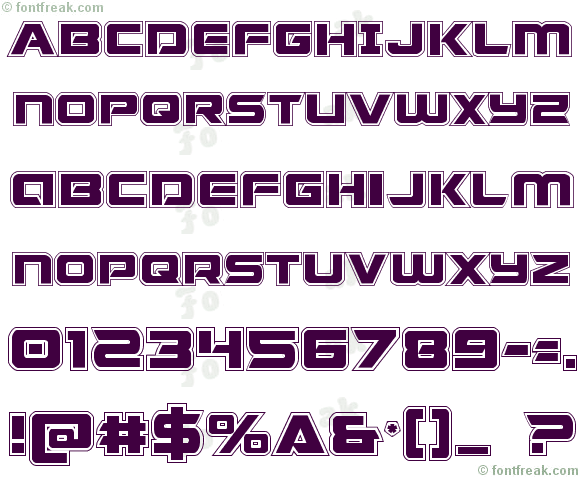
Starduster Shadow
The Starduster Shadow font, created by Daniel Zadorozny, is a striking display typeface that falls within the decorative category. This font features a unique blend of condensed and expanded letterforms, offering a bold presence that captures attention. The visual characteristics include a medium stroke weight, characterized by a subtle shadow effect that adds depth to each character. The letters are outlined with clean lines and a uniform spacing that enhances legibility while maintaining a modern aesthetic. The italicized variation further enhances its dynamic appeal, making it suitable for a variety of creative projects.
Starduster Shadow is ideal for use cases such as movie posters, where its boldness can convey excitement and drama. It is also well-suited for branding small businesses, particularly in the entertainment and tech industries, where a contemporary look is essential. Additionally, the font can elevate restaurant menus, providing a unique flair that attracts diners’ attention. Graphic designers and content creators will find this font particularly useful in creating eye-catching graphics and promotional materials, as its distinctive style can help convey a brand's personality effectively.
The target audience for Starduster Shadow includes graphic designers, small business owners, and content creators who seek to make a statement with their typography. The font’s versatility allows it to be used across various mediums, from digital to print, making it a valuable addition to any designer’s toolkit.
What sets the Starduster Shadow font apart is its ability to combine modernity with a playful touch, making it a standout choice for anyone looking to infuse their work with personality. With a Starduster Shadow font free download available, designers can easily incorporate this eye-catching typeface into their projects.